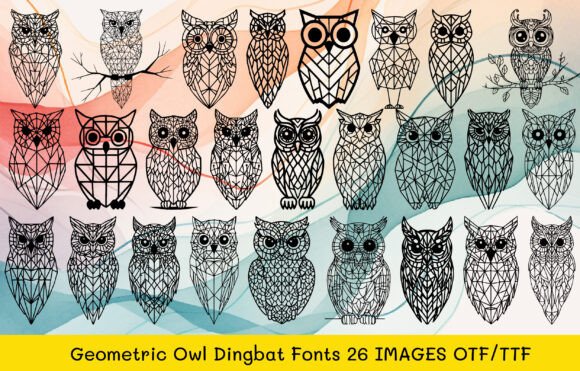
Geometric Owl Dingbats Fonts: Elevate Your Designs with Modern Twists
Are you looking for a unique and modern font to add a touch of sophistication to your designs? Look no further than the Geometric Owl Dingbats Fonts! This set features 26 unique star-inspired owl designs with a modern geometric twist, each corresponding to a letter from A to Z. In this article, we’ll explore the features and benefits of this font, and how it can elevate your designs to the next level.
What are Geometric Owl Dingbats Fonts?
Geometric Owl Dingbats Fonts is a set of 26 unique fonts, each featuring a star-inspired owl design with a modern geometric twist. The fonts are designed to be used as dingbats, which are decorative symbols used to add visual interest to text. Each font corresponds to a letter from A to Z, making it easy to use and incorporate into your designs.
Key Features of Geometric Owl Dingbats Fonts
- 26 Unique Designs: Each font features a unique star-inspired owl design, corresponding to a letter from A to Z.
- Modern Geometric Twist: The designs have a modern geometric twist, making them perfect for contemporary designs.
- Perfect for Crafting and Decorating: The font is perfect for crafting, decorating, and adding a touch of personality to your designs.
Benefits of Using Geometric Owl Dingbats Fonts
There are many benefits to using Geometric Owl Dingbats Fonts in your designs. Here are just a few:
1. Adds Visual Interest
The Geometric Owl Dingbats Fonts add a touch of visual interest to your designs, making them stand out from the crowd. The unique star-inspired owl designs are sure to grab attention and add a touch of personality to your text.
2. Versatile and Flexible
The Geometric Owl Dingbats Fonts are versatile and flexible, making them perfect for a wide range of design projects. Whether you’re working on a logo, brochure, or social media graphic, these fonts can be used to add a touch of sophistication and elegance.
3. Easy to Use
4. Perfect for Contemporary Designs
The Geometric Owl Dingbats Fonts are perfect for contemporary designs, adding a touch of modernity and sophistication to your text. The modern geometric twist on the owl designs makes them perfect for designers looking for a fresh and unique look.
In conclusion, the Geometric Owl Dingbats Fonts are a unique and modern font that can add a touch of sophistication and elegance to your designs. With 26 unique star-inspired owl designs, a modern geometric twist, and compatibility with a wide range of design software, these fonts are perfect for designers looking for a fresh and unique look. Whether you’re working on a logo, brochure, or social media graphic, the Geometric Owl Dingbats Fonts are sure to elevate your designs to the next level.